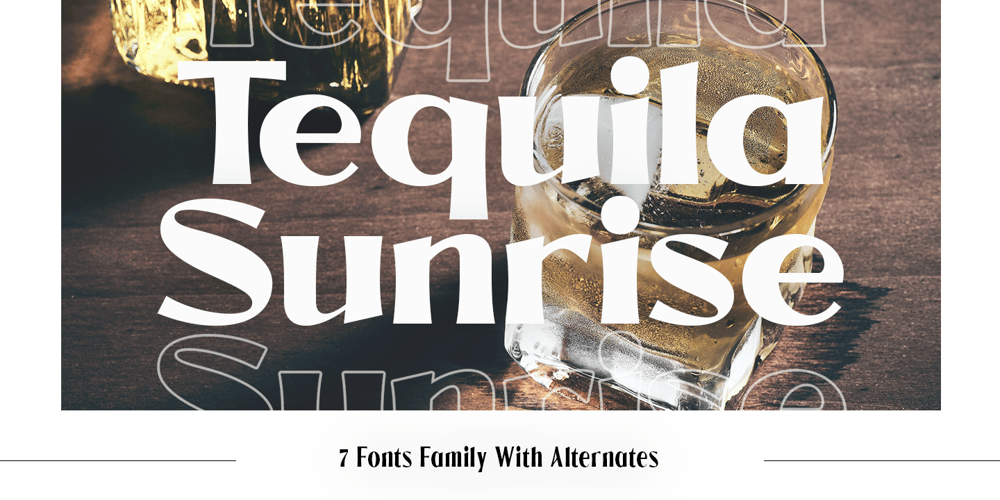
Tequila Sunrise Font Family was designed by Pande Made and published by TypeClassHeroes. Tequila Sunrise contains 7 styles and family package options. Introducing Tequila Sunrise, access your OpenType features to access the large selection of alternate letters and ligatures. Use this font for any branding, product packaging, invitation, quotes, t-shirt, label, poster, logo etc.Feature 7 Weight Uppercase & Lowercase Number & Symbol International Glyphs Multilingual support Alternative Ligature Feel free to drop us a message any timeHope you enjoy it.